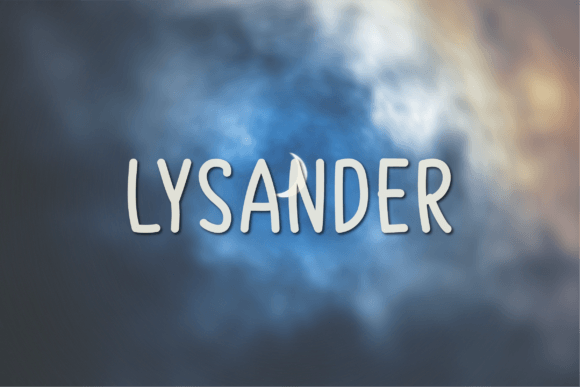
Lysander Font
Download Lysander Font for free! Created by Becraft and published by Maxwell Barker, this sans serif font family is perfect for adding a unique touch to your designs.
Step into the world of Lysander, where typography meets artistry, leaving a trail of captivated hearts in its wake. This exquisite sans serif font by Becraft isn't just a collection of letters; it's an expression of love, a celebration of emotions, and an invitation to let your creativity soar.
With its playful all-caps characters, Lysander dances across the digital canvas, adding a touch of whimsy to every design. Whether you're crafting handmade cards, expressing yourself through digital designs, or commanding attention in presentations, Lysander is your trusty companion, ready to elevate your creations to new heights.
Dive into a world of limitless possibilities with Lysander. Its versatility knows no bounds, from heartfelt Valentine's Day greetings to eye-catching social media posts. Let your imagination run wild as you explore the endless ways to make Lysander your own.
Don't settle for ordinary fonts that blend into the background. Embrace the power of Lysander, a font that sparks conversations, ignites emotions, and leaves a lasting impression on all who encounter it. Join the ranks of creative visionaries who have discovered the magic of Lysander and unlock a world of typographic wonders.